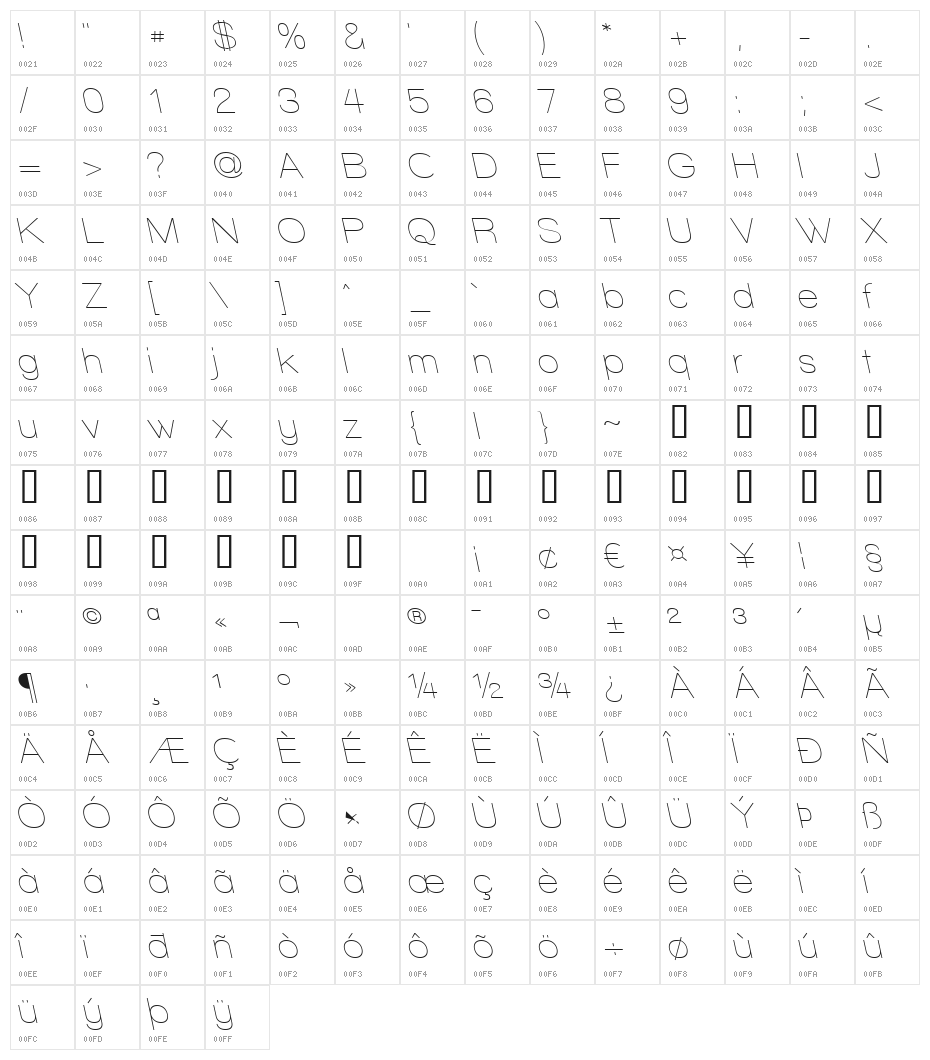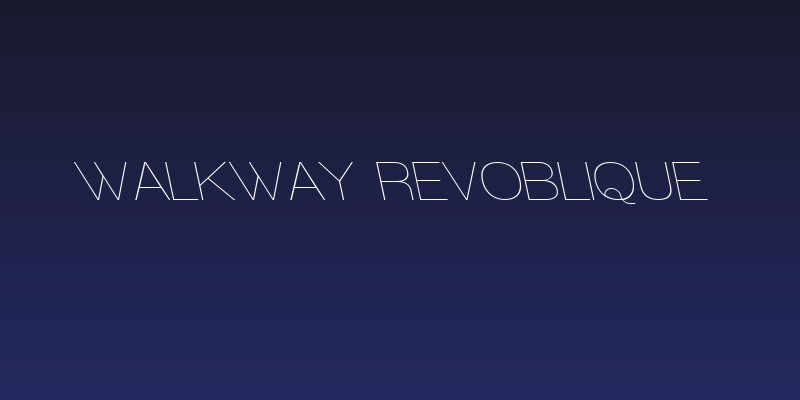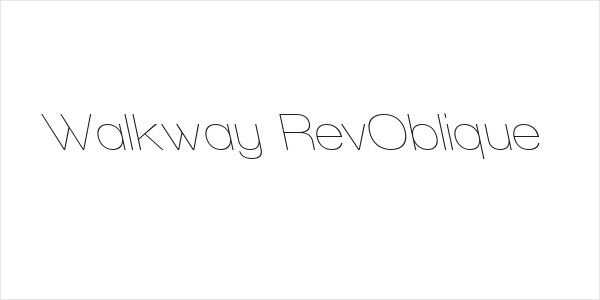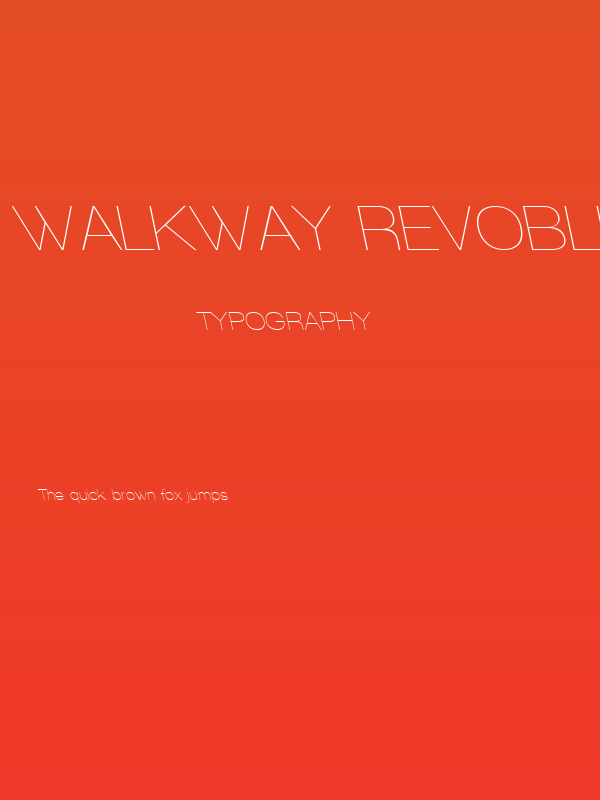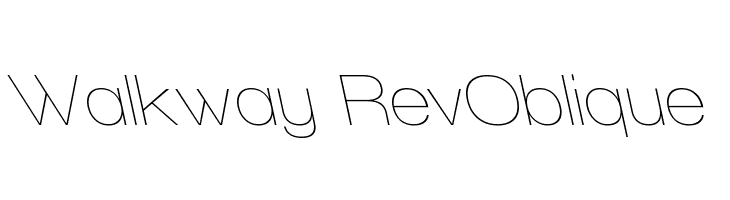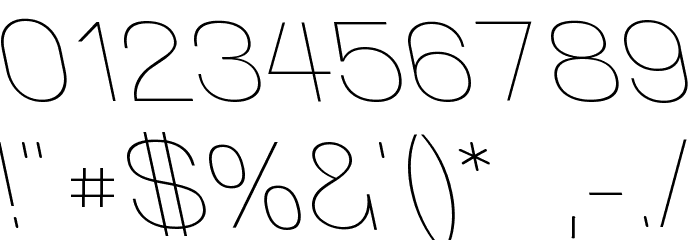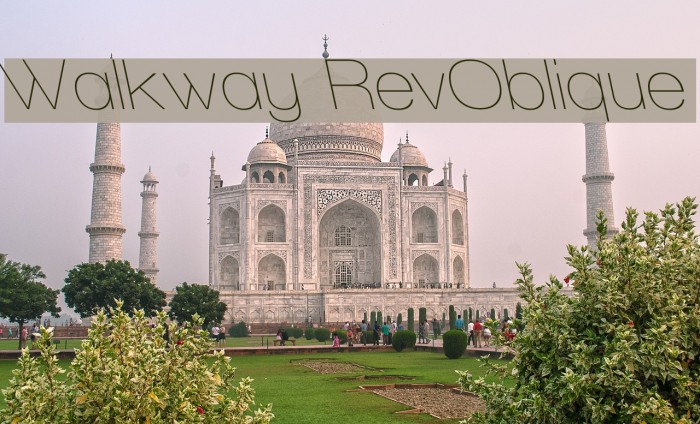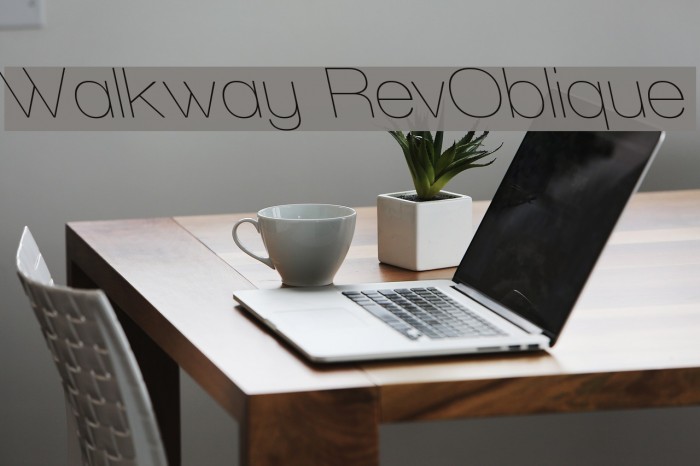
Walkway RevOblique Font
Walkway RevOblique Description
This font features a sleek and modern design with a distinct oblique slant, giving it a dynamic and forward-moving appearance. The characters are thin and elongated, contributing to a sense of elegance and sophistication. The uppercase and lowercase letters maintain a consistent style, with smooth curves and clean lines. The numerals are similarly styled, ensuring uniformity across all characters. Special characters are included, matching the overall aesthetic with minimalistic yet stylish forms. This font's simplicity and clarity make it versatile for various design applications.
| Use Case | Headlines, Logos, Digital interfaces |
| Proposed Projects | Ideal for modern branding, editorial design, digital interfaces, and minimalist posters. |